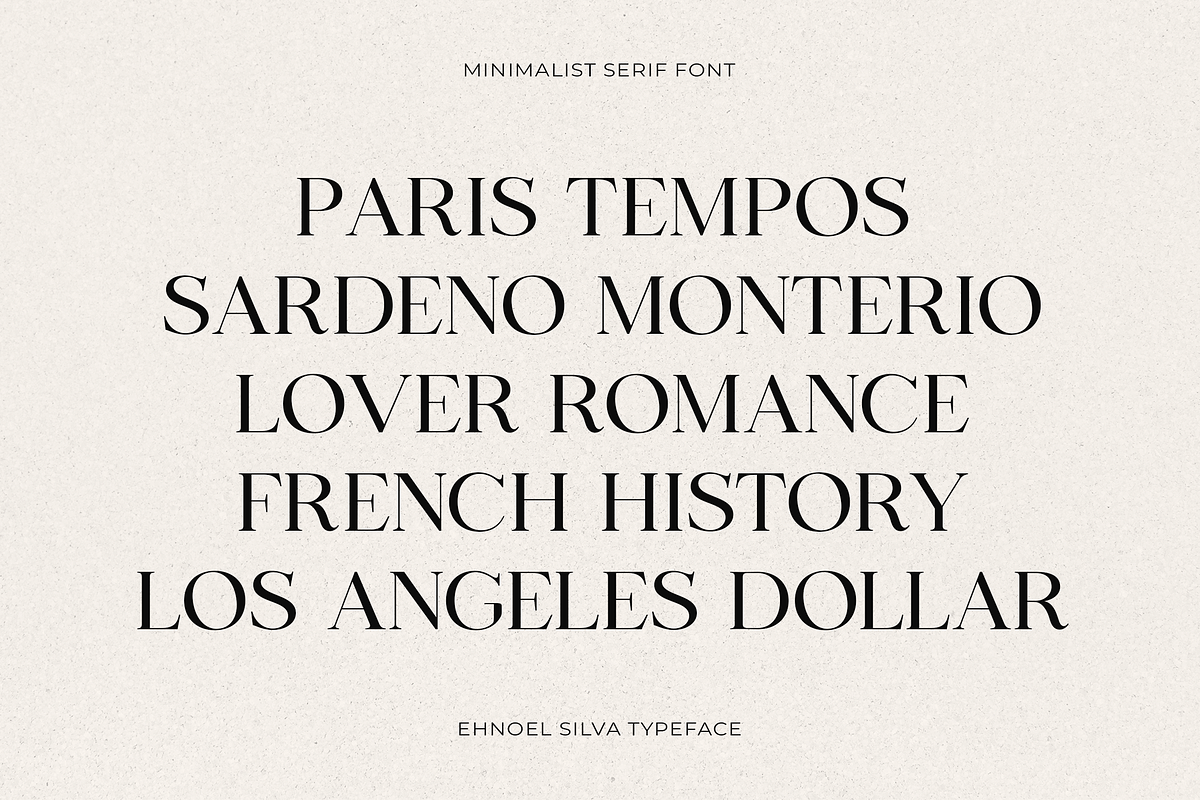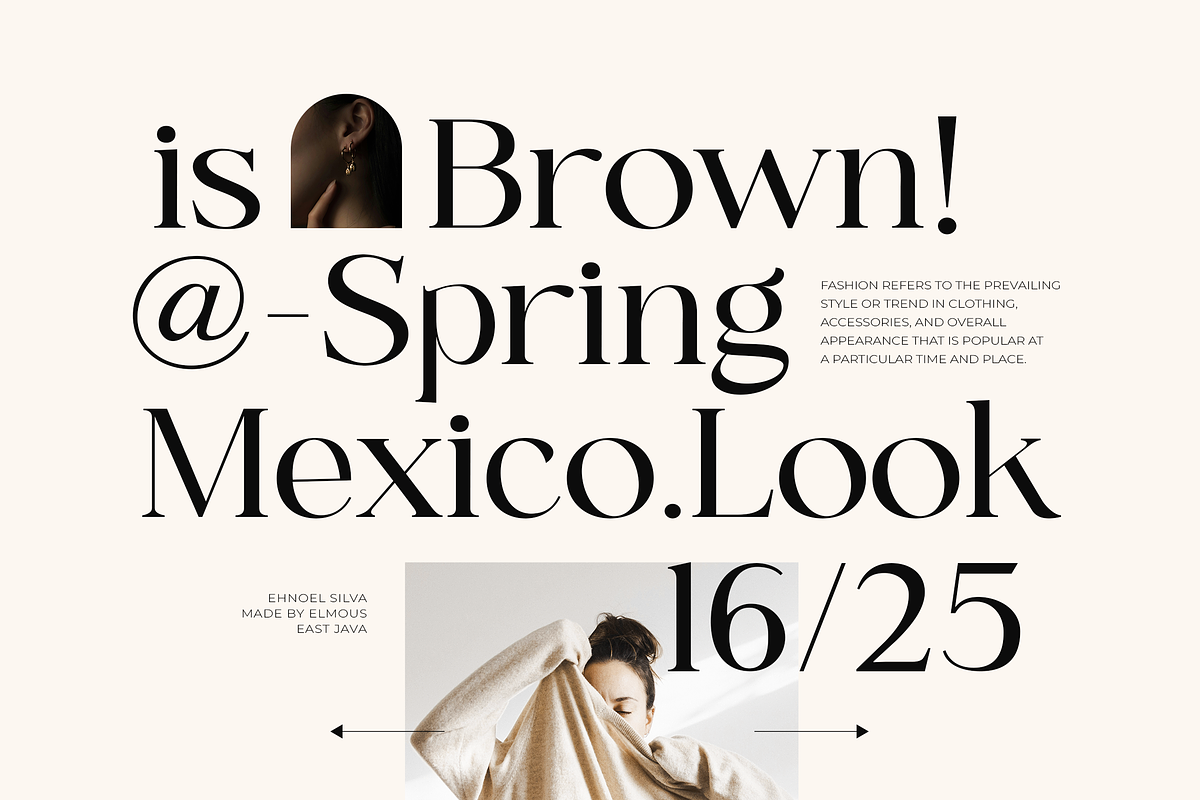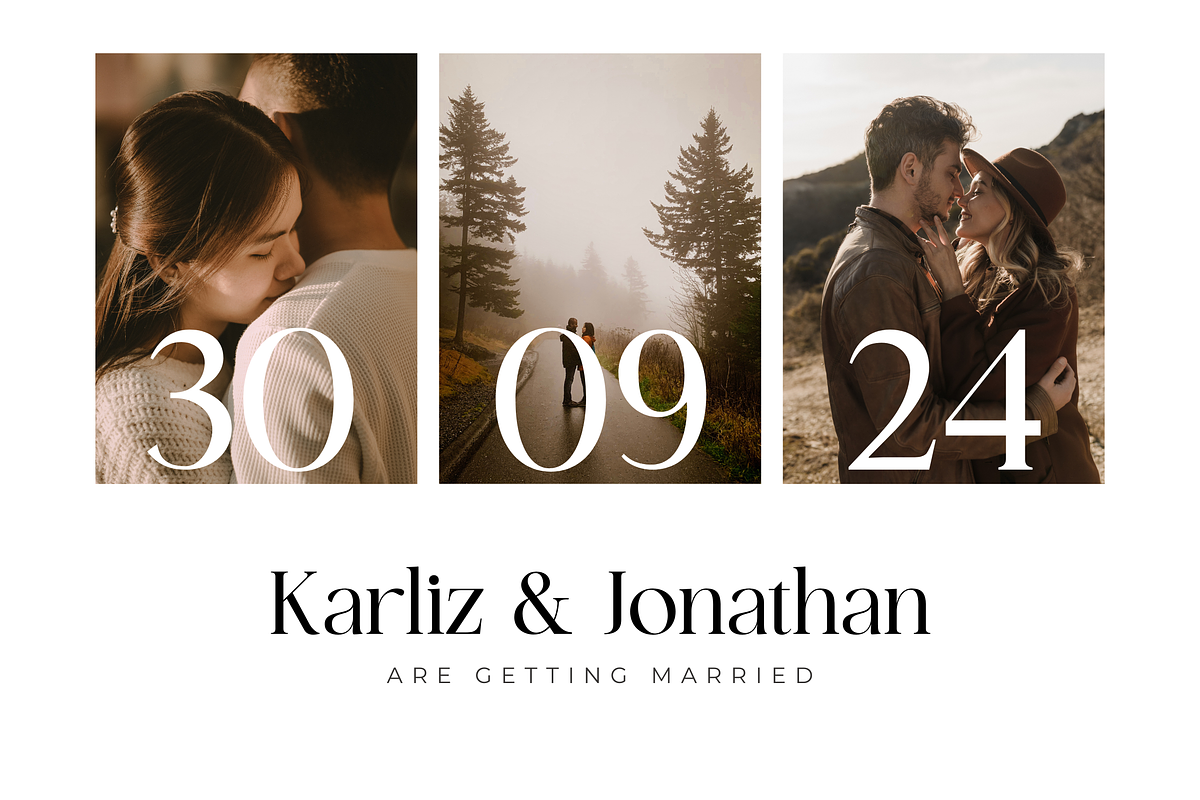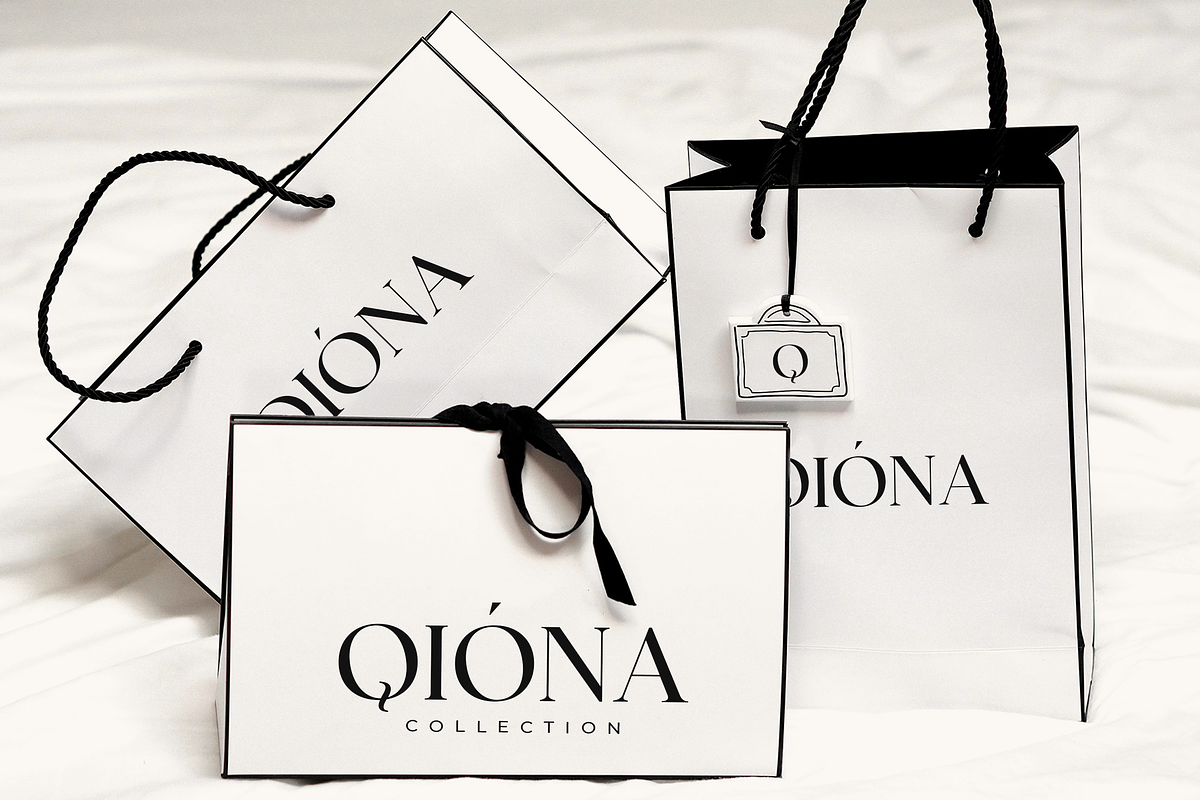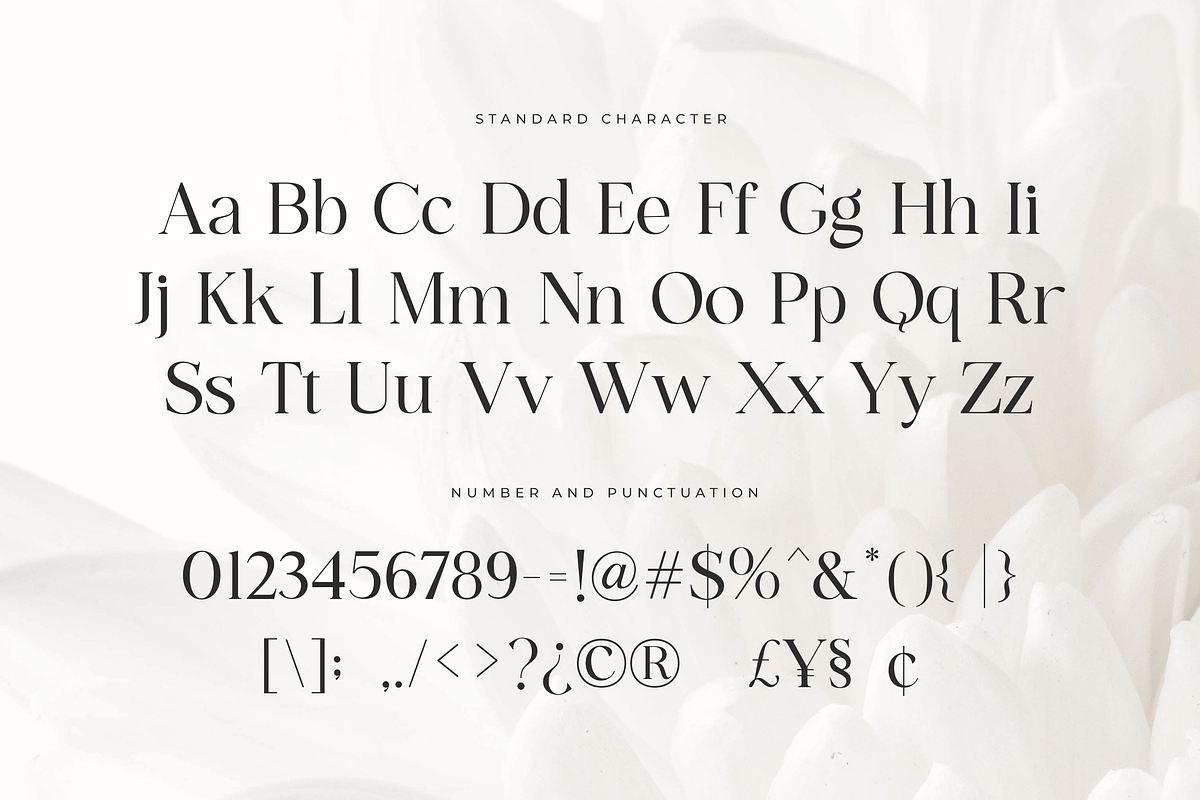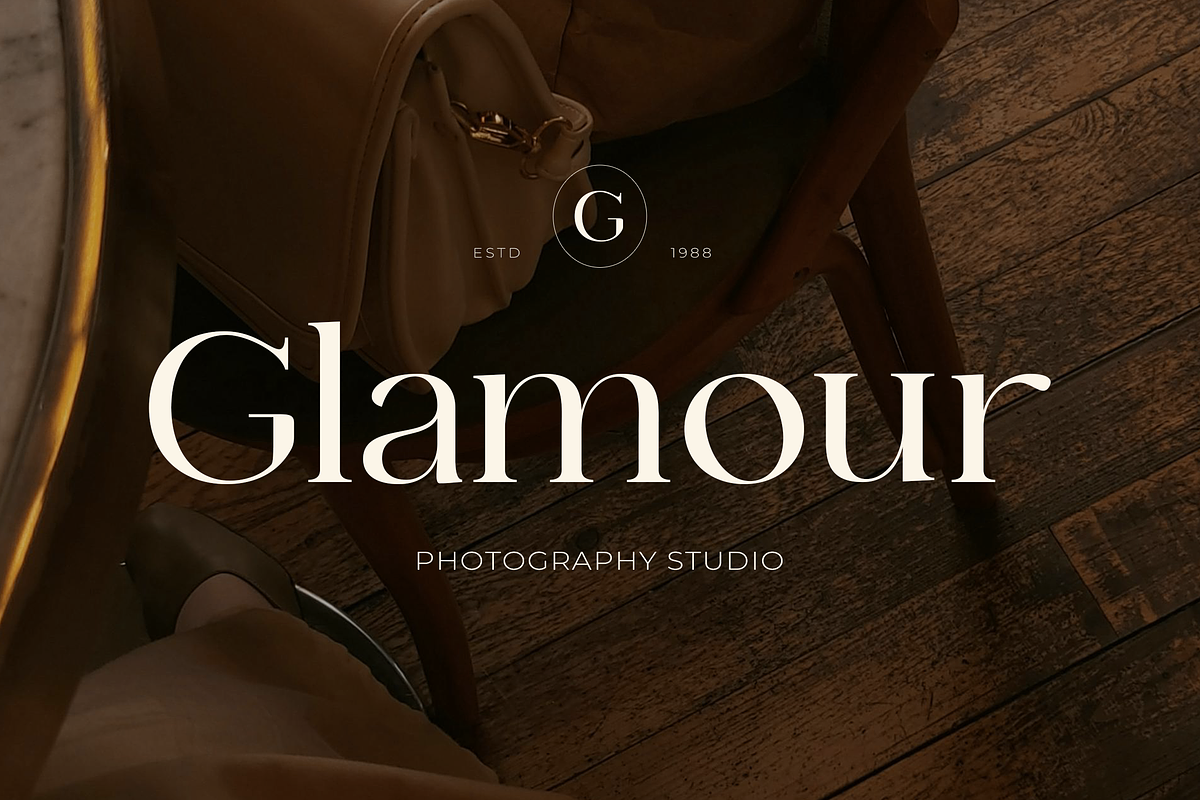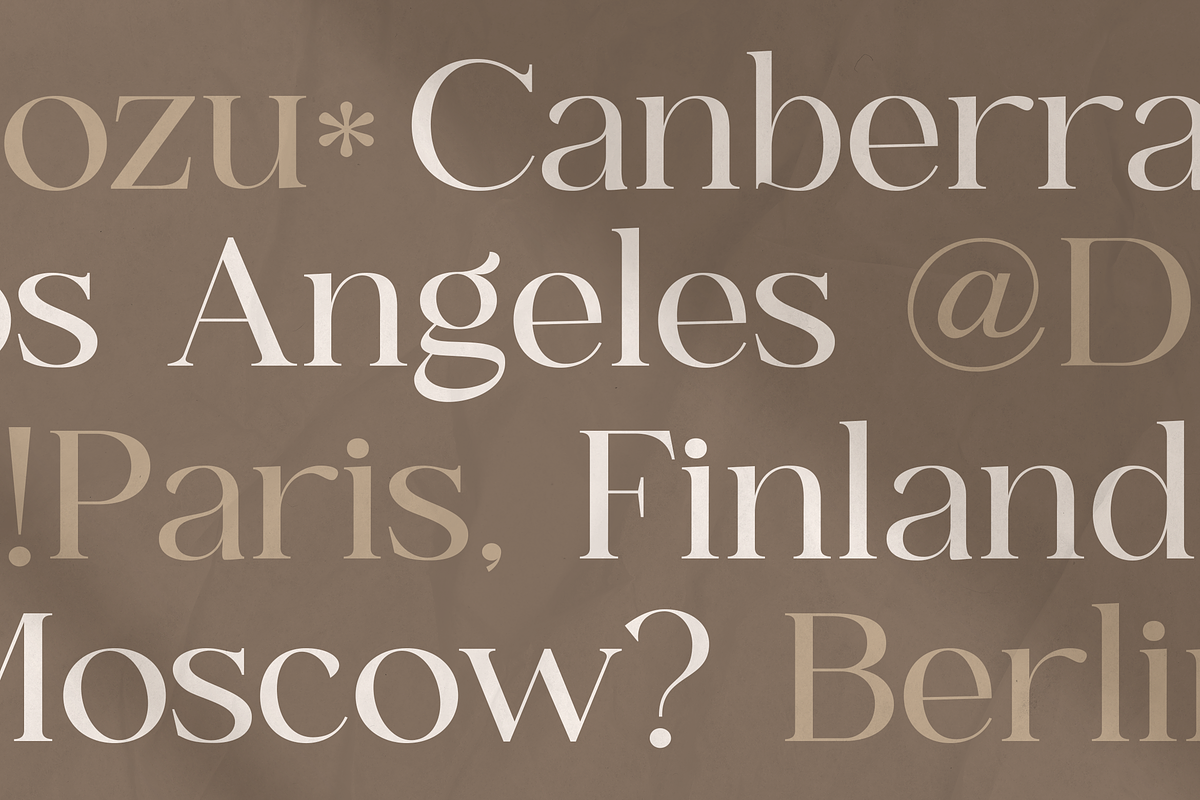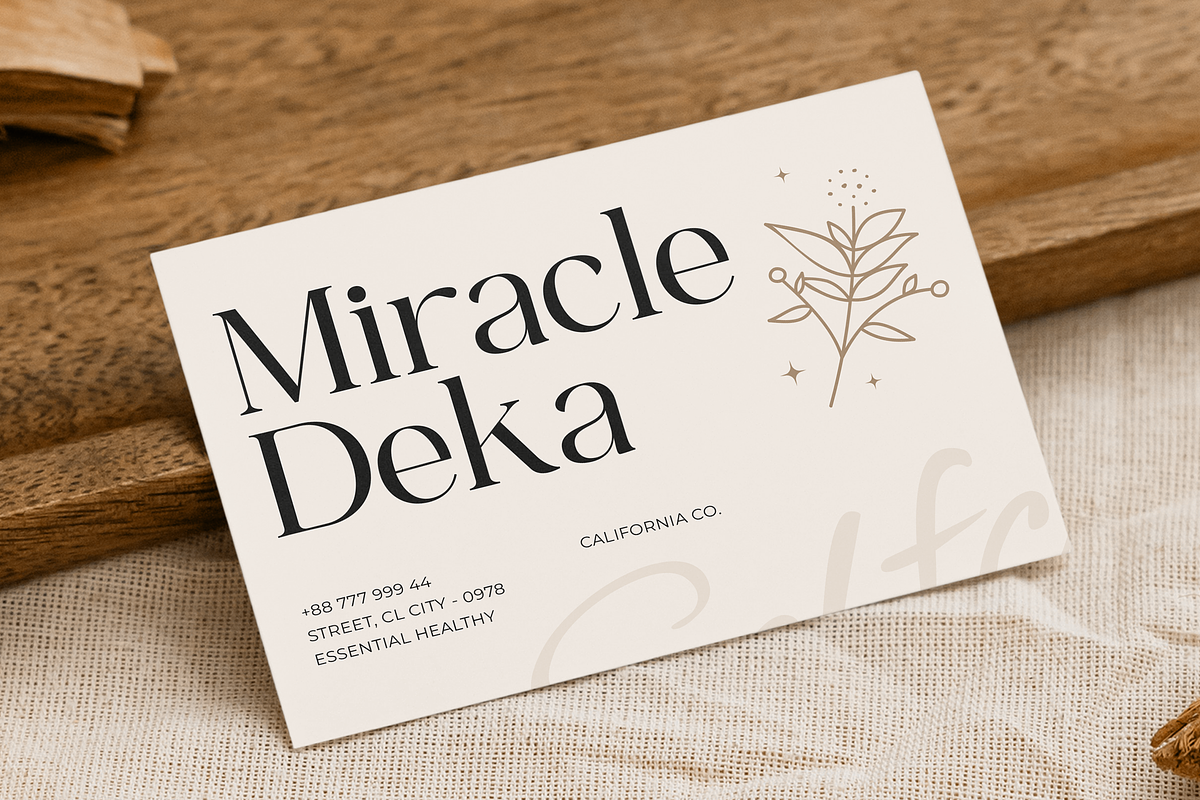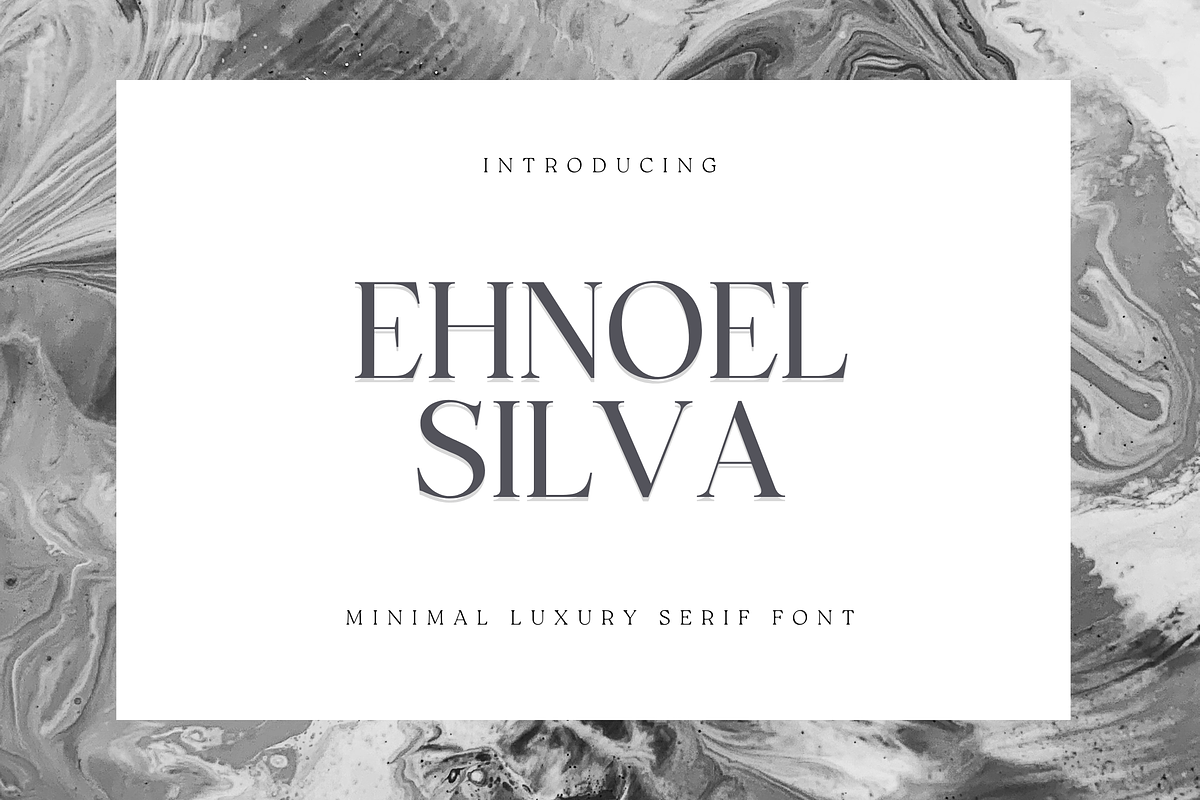
Ehnoel Silva - Editorial Serif
Introducing Ehnoel Silva, a stunning and versatile serif font that embodies chic display. Perfectly balancing classic elegance with a clean, modern aesthetic, Ehnoel Silva is designed to make a sophisticated statement.
Each character is crafted with geometric precision, creating a look that is both strong and poised.
Ehnoel Silva is the perfect choice for branding, editorial design, fashion layouts, wedding invitations, and any project that requires a touch of timeless class.
Uppercase and Lowecase Characters.
PUA Encoded Characters.
Numerals and Punctuations.
Alternates and Ligatures.
Multilingual Support.